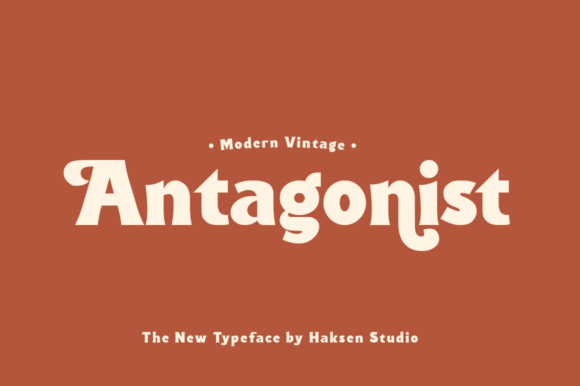
The Perfect Opponent for Your Designs
Have you ever stared at a blank canvas, trying to bring your creative vision to life? You’ve got a concept, a message, and a style in mind, but something’s missing. That’s where the perfect font comes in – a game-changer that elevates your design and makes it truly unforgettable. For designers, the right font can be the difference between a decent project and a masterpiece.
Enter the Antagonist Font, a bold and elegant serif font that exudes a vintage charm. This stylish font is perfect for designers who want to add a touch of sophistication and uniqueness to their work. With its vintage flair, the Antagonist Font is an ideal choice for projects that require a classic yet modern look. Whether you’re working on a branding project, a magazine layout, or a website design, this font will make your creations stand out.
Antagonist Font Key Features
- Unique Characteristics: Antagonist Font features a unique blend of modern and vintage elements, with distinctive geometric shapes and subtle texture effects.
Antagonist Font Review
As a designer, I was excited to dive into the Antagonist Font, hoping to find a unique and captivating typeface. Here’s my honest review.
- The Antagonist Font has a distinctive, bold look that’s sure to grab attention.
- It’s great for making a statement in headlines or titles.
- The font has a wide range of weights, making it versatile for different design applications.
- The font’s boldness can sometimes make it difficult to read in smaller sizes or when used extensively.
- The italic and oblique styles can appear uneven, which may detract from the overall design.
- The font may not be suitable for body text due to its limited readability at smaller sizes.
The Antagonist Font is a statement-making typeface that’s perfect for headlines, titles, or other design elements where you want to make a bold impression. However, it may not be the best choice for body text or designs that require a more subtle approach.
The Antagonist Font is ideal for:
- Creating bold and edgy designs
- Adding a touch of sophistication to your artwork
- Creating presentations or documents with a bold and confident tone
Q: Are there any variations or styles available for the Antagonist Font?
Yes, the Antagonist Font includes several weights and styles, including Light, Regular, Medium, Bold, and Black. These variations can be used to create visual hierarchy and emphasis in your designs. You can also use the font’s italic and oblique styles to add additional flair and personality to your typography.